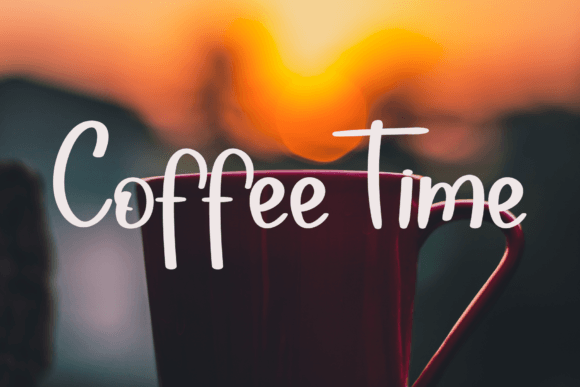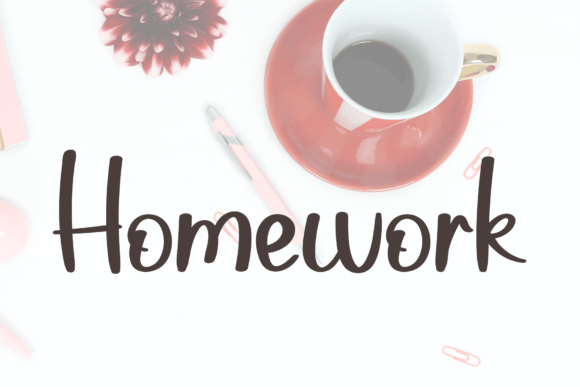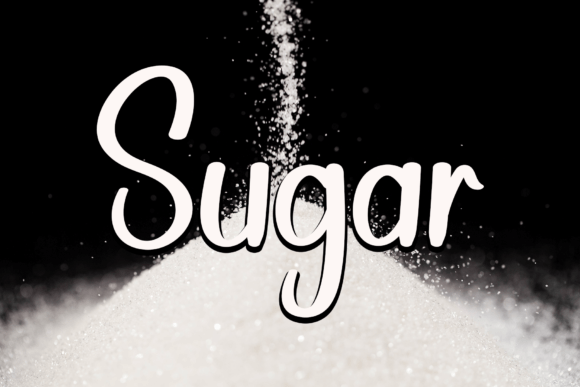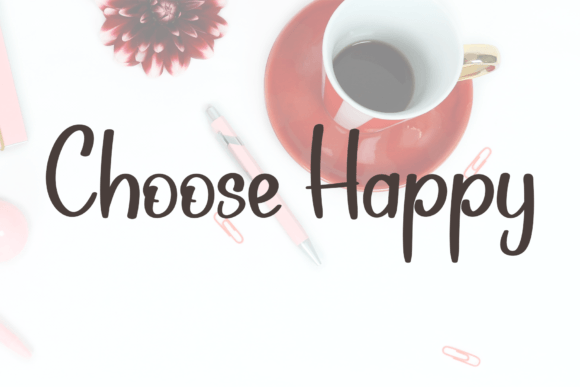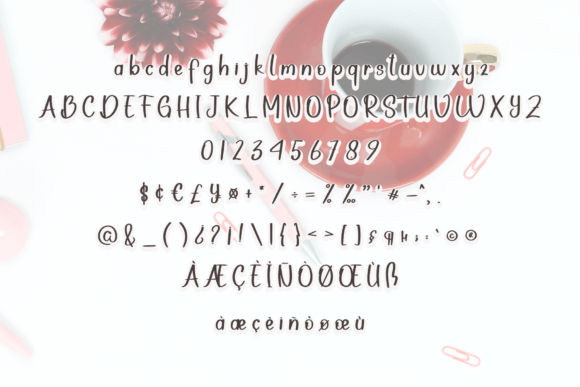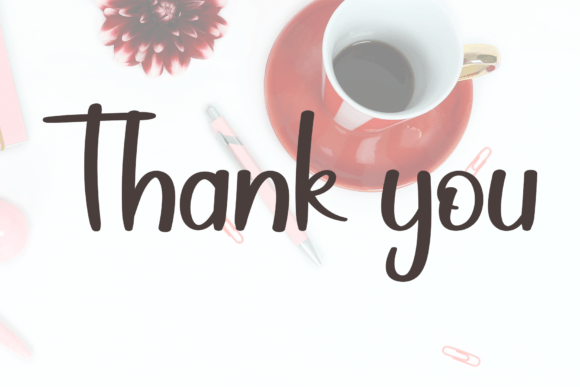
Unlock the Power of Handwritten Charm
Enter Break Font, a beautiful and fresh handwritten font that’s perfect for adding a personal touch to your designs. Whether you’re creating YouTube banners, cover logo mockups, wedding invitations, or ID cards, Break Font is the perfect companion. With its unique and simple design, this font is sure to make your business stand out and progress. By incorporating Break Font into your design arsenal, you’ll be able to create visually stunning and engaging designs that leave a lasting impression.
Break Font Key Features
- Unique Characteristics: Break Font features a unique, hand-drawn aesthetic with subtle texture and imperfections, giving it a distinctive and human touch.
- Kerning and Ligatures: The font includes advanced kerning and ligature features, ensuring that characters pair smoothly and harmoniously, even in complex typography.
Break Font Review
Overall, I have mixed feelings about the “Break Font”. While it has some great qualities, it also falls short in a few areas.
- Unique and creative typography: Break Font has a distinctive, hand-drawn feel that can add a touch of personality to your designs.
- High level of customization: The font is highly customizable, allowing you to adjust the spacing, line height, and even the letter spacing to suit your needs.
- Good for headings and titles: Break Font is particularly well-suited for headings and titles, where its bold, eye-catching style can really shine.
- Limited legibility at small sizes: While Break Font looks great at larger sizes, it can become quite hard to read when scaled down.
- Not ideal for body text: Due to its unique style and letter spacing, Break Font is not the best choice for body text, where clarity and readability are crucial.
- Lack of consistency: The font’s irregularities can sometimes make it look inconsistent, which may detract from its overall impact.
In conclusion, Break Font is a creative and versatile font that can add a unique touch to your designs. However, it’s essential to use it judiciously, reserving it for headings and titles where its bold style can really shine. With some careful consideration and customization, Break Font can be a valuable addition to your design toolkit.
Tips for Getting the Most Out of Break Font